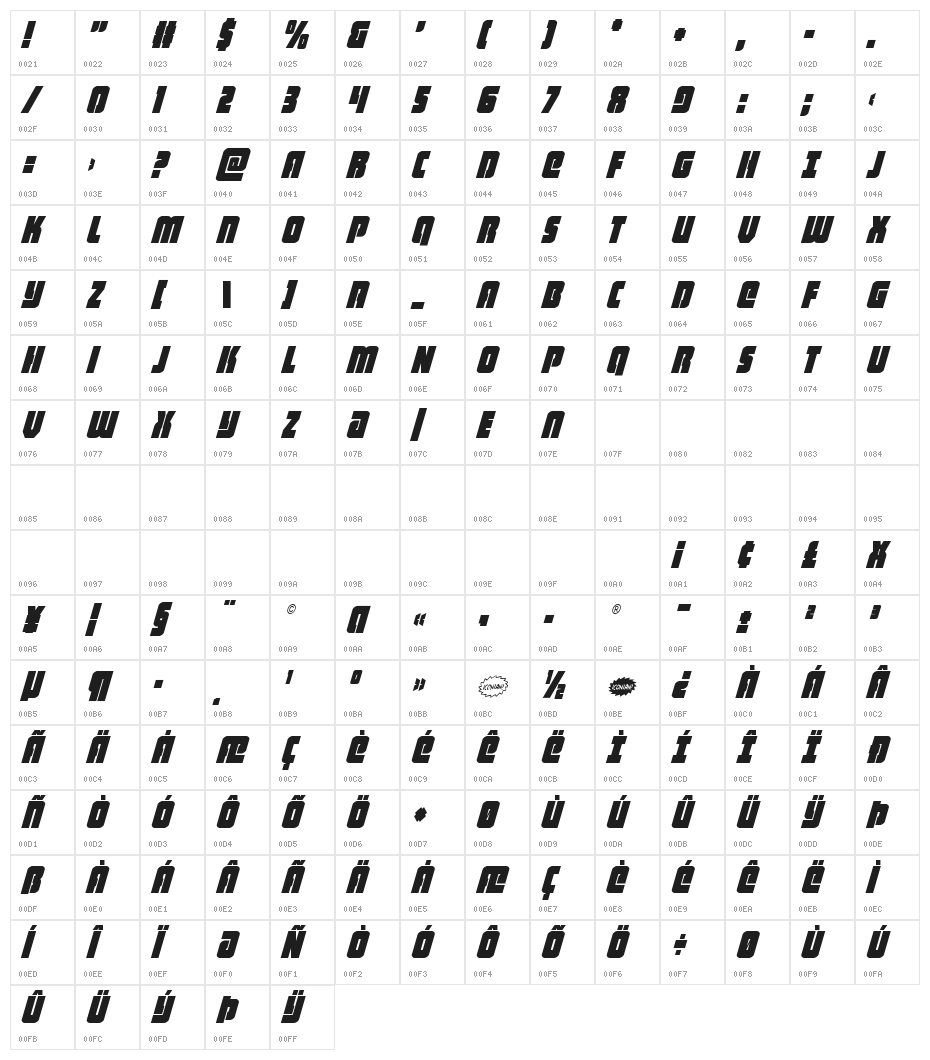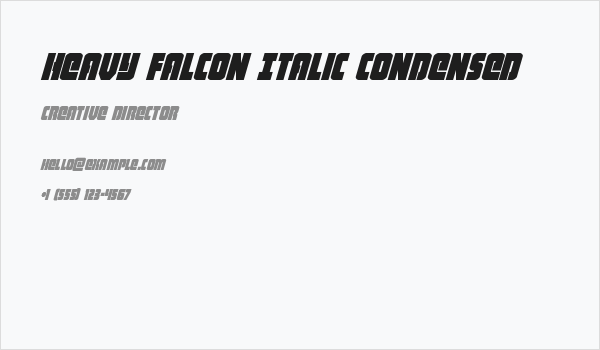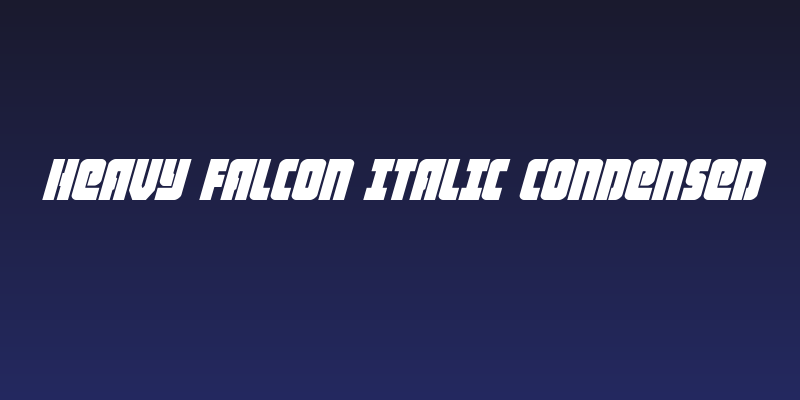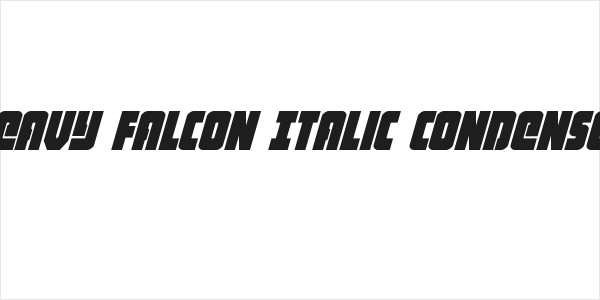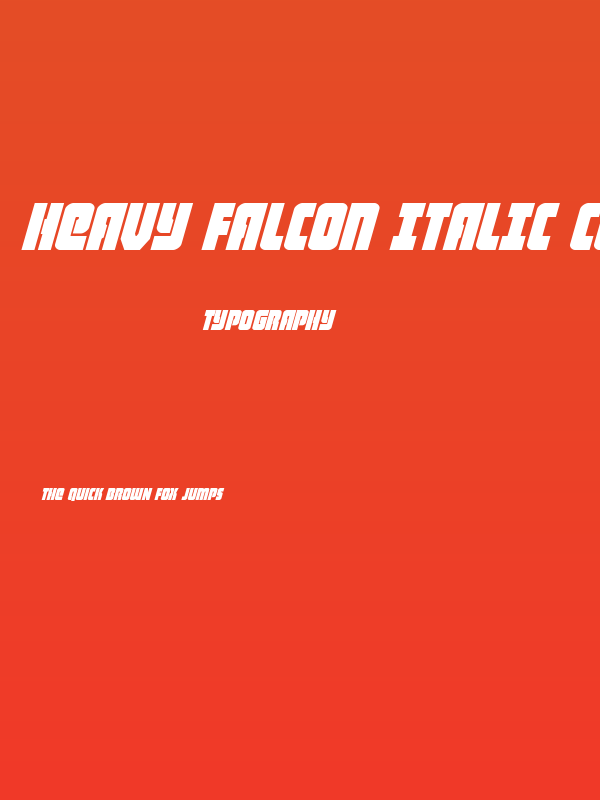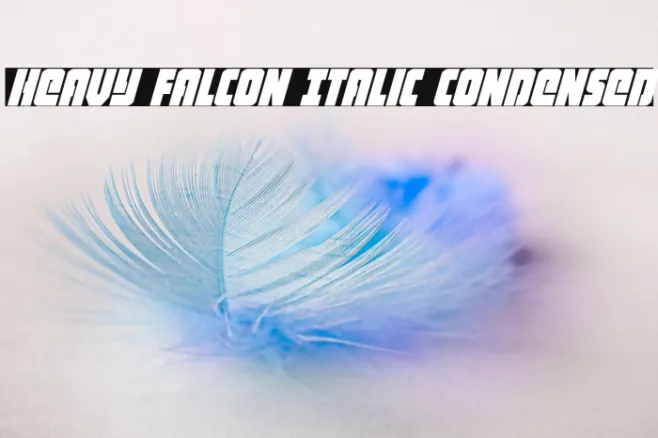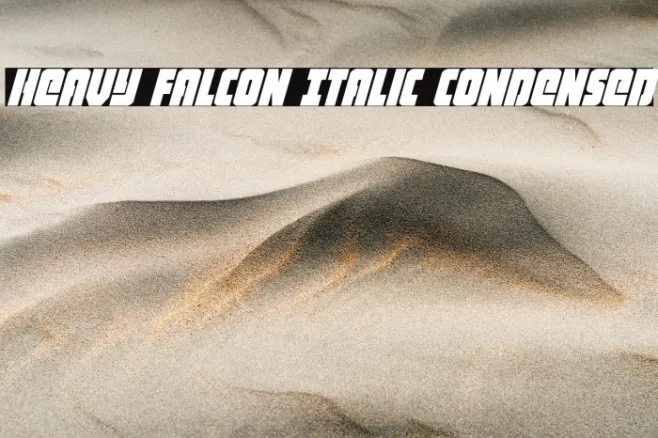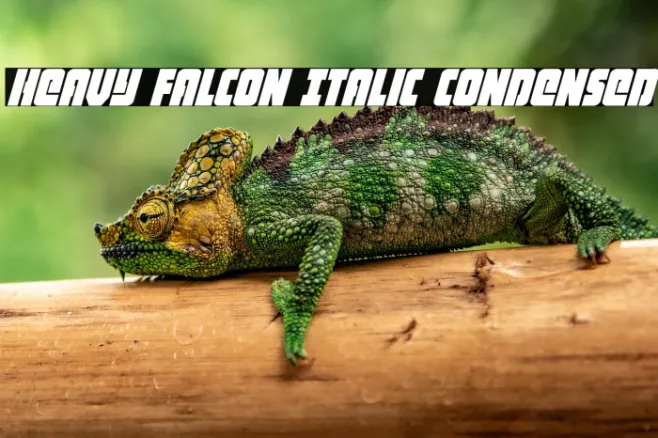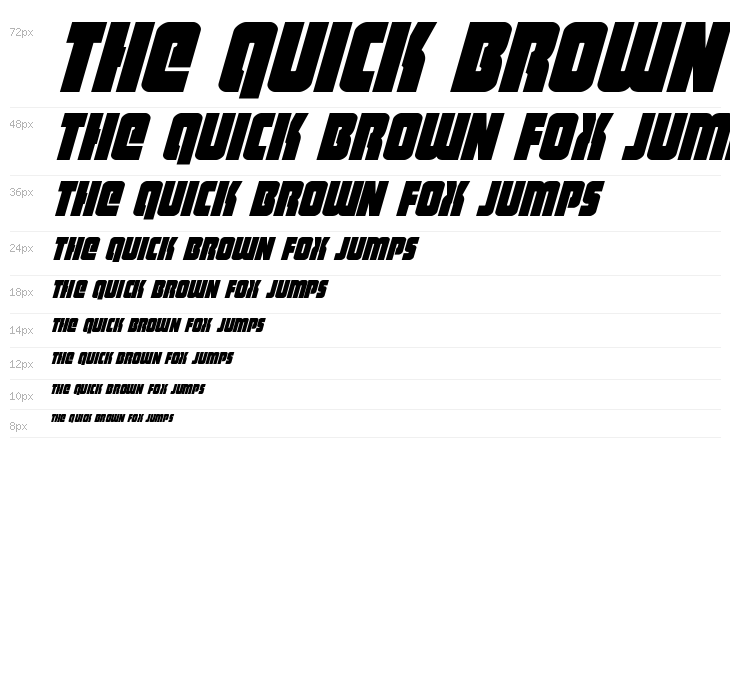
Heavy Falcon Italic Condensed Font
Heavy Falcon Italic Condensed Description
This font features a bold and dynamic style with a strong italic slant, giving it a sense of motion and energy. The condensed letterforms are tightly packed, enhancing its impactful appearance. The strokes are thick and uniform, providing a high contrast that makes each character stand out. The design is modern and assertive, suitable for projects that require a strong visual presence. The uppercase and lowercase letters maintain a consistent style, while the numerals and special characters are crafted to match the overall aesthetic.
HEAVY-FALCON-ITALIC-CONDENSED UPPERCASE
HEAVY-FALCON-ITALIC-CONDENSED LOWERCASE
HEAVY-FALCON-ITALIC-CONDENSED OTHER CHARS
| Proposed Projects | Ideal for sports branding, action movie posters, dynamic advertisements, and bold headlines. |